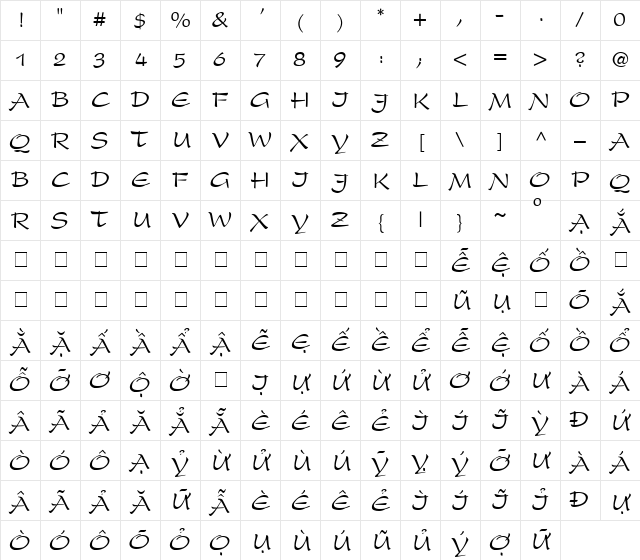
HoangYenH 1.1 Regular
Design Context for HoangYenH 1.1
HoangYenH 1.1 is a composed and adaptable typeface that performs quietly and consistently across a wide range of design contexts.